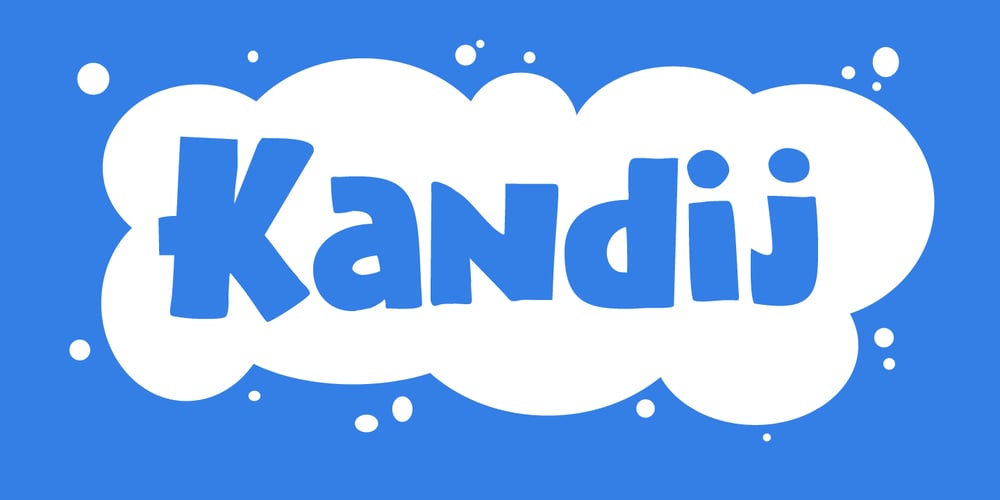
Kandij
Kandij font
Kandij Font Family was designed by David Kerkhoff and published by Hanoded. Kandij contains 2 styles and family package options. Kandij is a Dutch word and it means ‘Rock Sugar’. We Dutch use it in a lot of products, from ‘ontbijtkoek’ (a rye based spiced cake we sometimes eat for breakfast) to Fryske Sûkerbôle, A Frisian sweet bread.Kandij is a fat and happy font. I’d probably use it for any book or product aimed at children, as it has a certain lumpy cuteness.Comes with diacritics and swashes for the upper case letters.